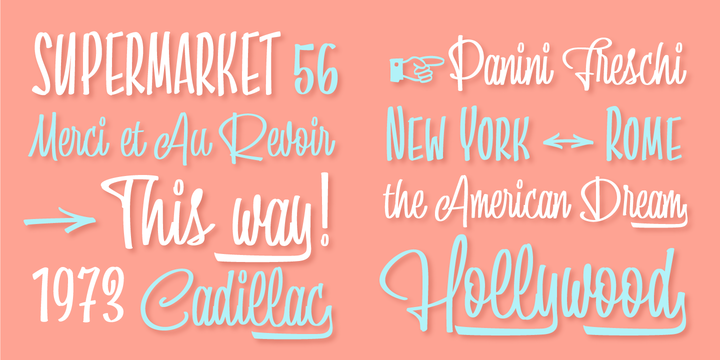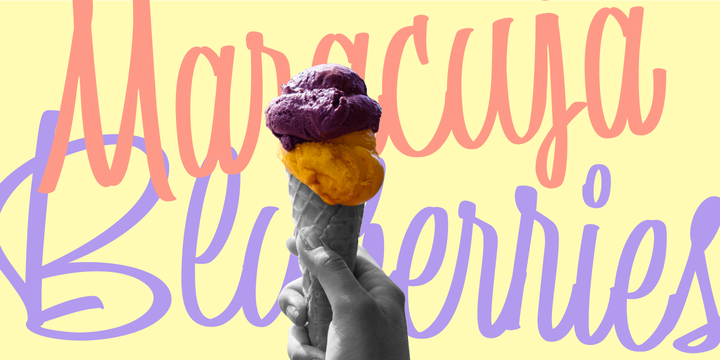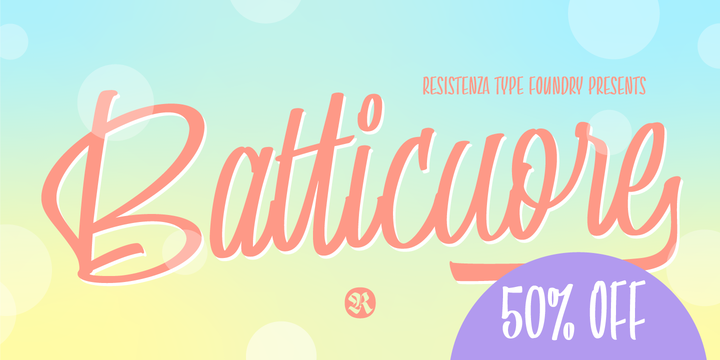
Batticuore Font Family
About this font family
Batticuore means “palpitation” in Italian and is a powerful world.
This font family is inspired by brush lettering, Batticuore provides two variants, Regular and caps. Both scripts are based on a brush strokes with a little contrast.
A large set of ligature and alternates are included.